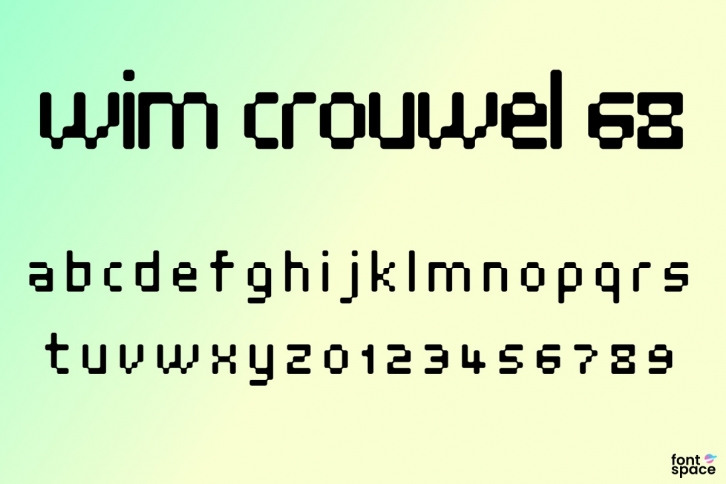
This is closely based on a typeface on the cover of 20th Century Type Remix (1998, Laurence King Publishing), which is in turn based on a poster by Wim Crouwel in 1968, appearing on page 113 of said book.